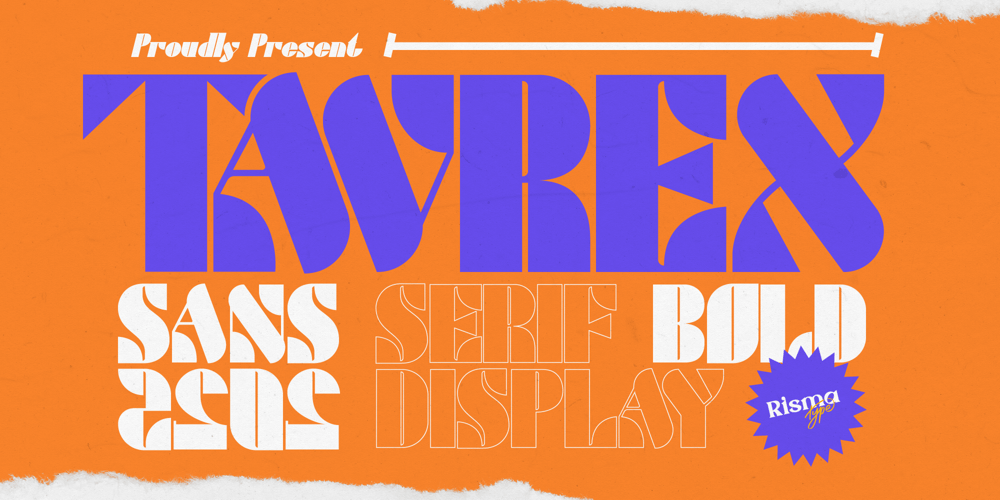
Tavrex Font Family was designed by Risma Mulyasari and published by Risma Type. Tavrex contains 2 styles and family package options. ✨ Tavrex ✨Bold and Modern Sans Serif Display FontTavrex is a sans serif bold display font designed to convey confidence and contemporary style. With its robust forms and clean structure, this font is perfect for making an impact in design projects that require a bold and modern aesthetic, such as:Branding & Logos: Stand out with a strong and memorable identity.Posters & Headlines: Deliver messages with power and clarity.Web Design & UI: Enhance interfaces with a sleek and professional touch.💎 Make a bold statement with every character of Tavrex.Transform your designs with strength and modern appeal that captures attention!